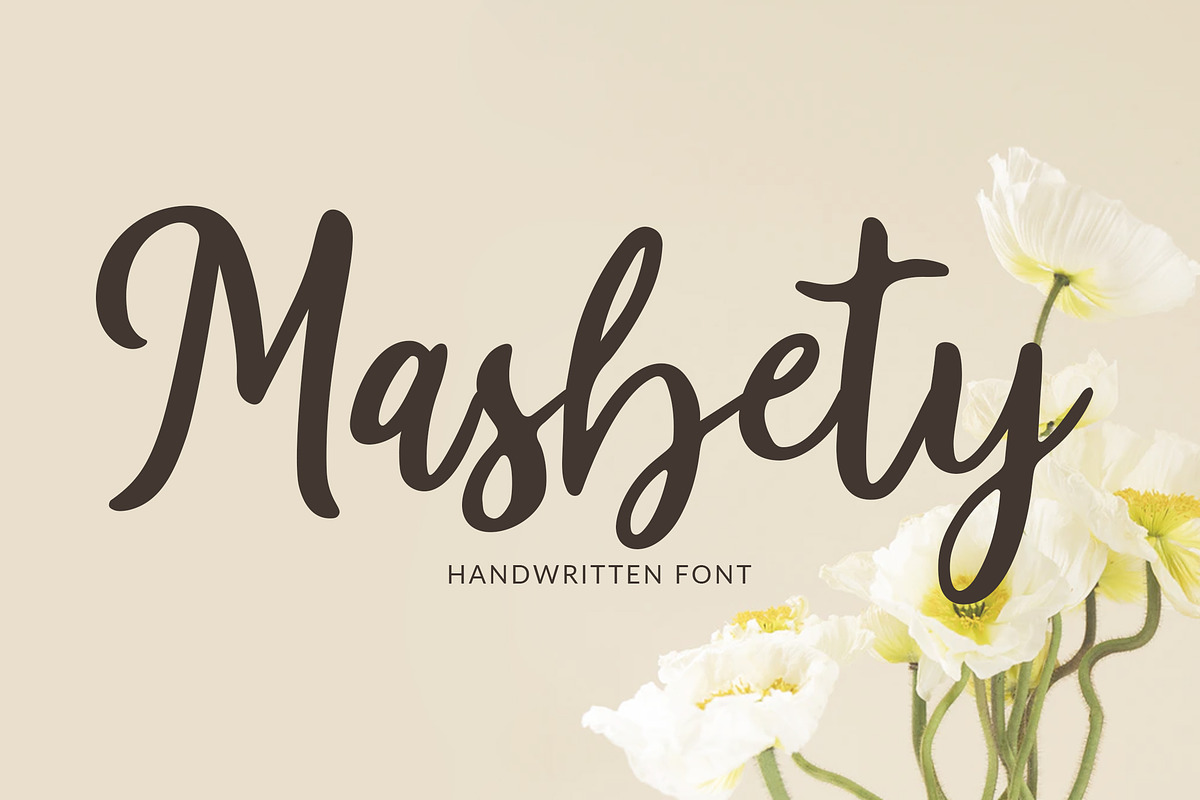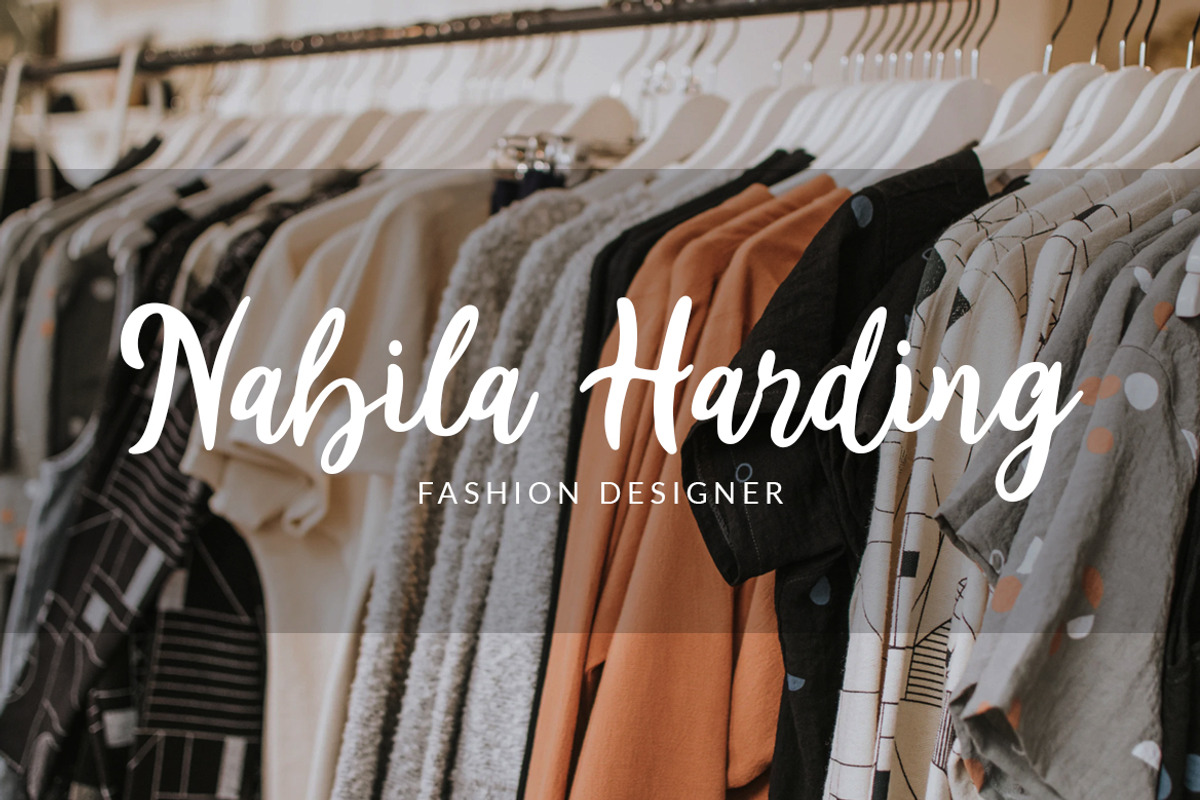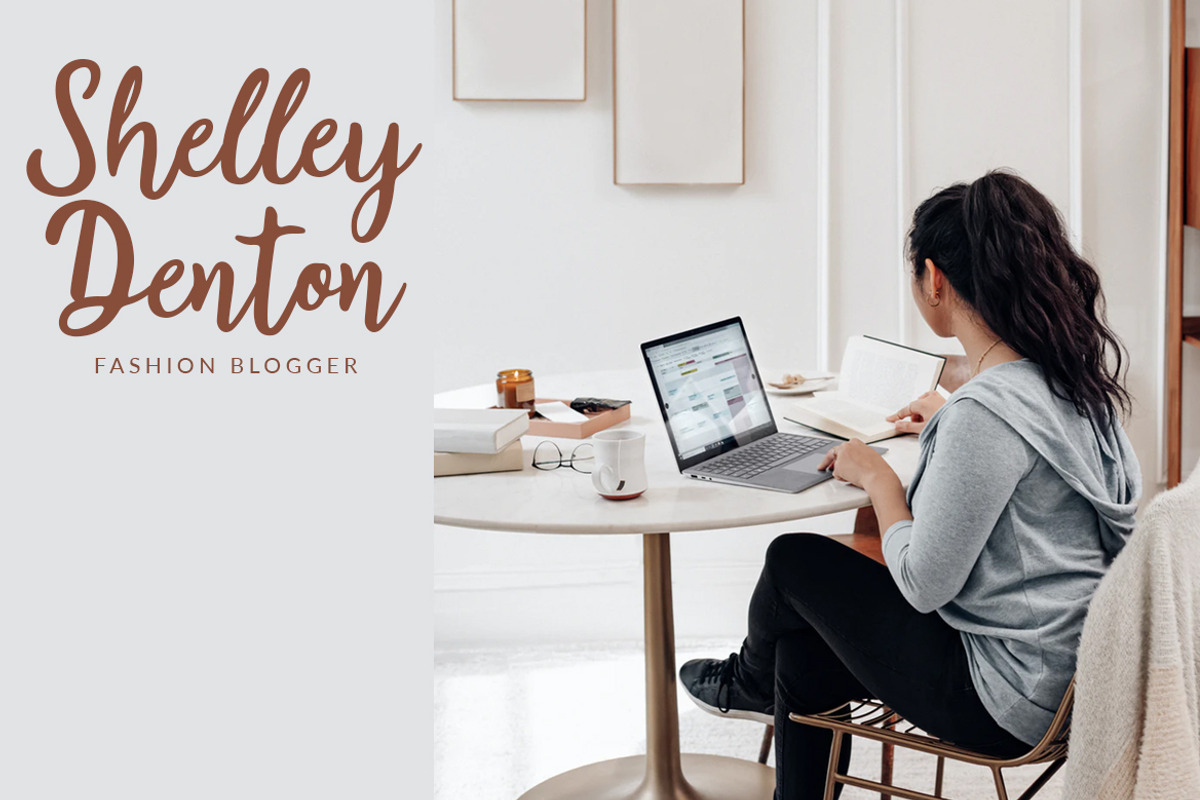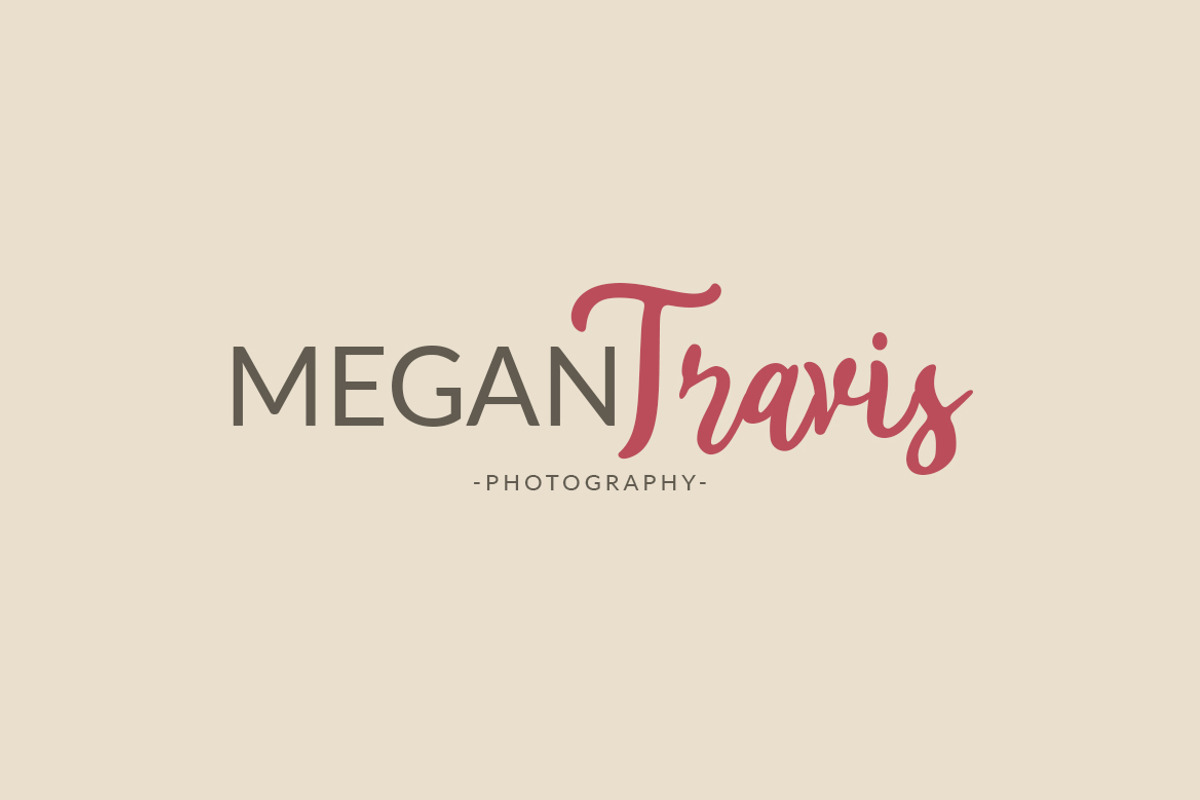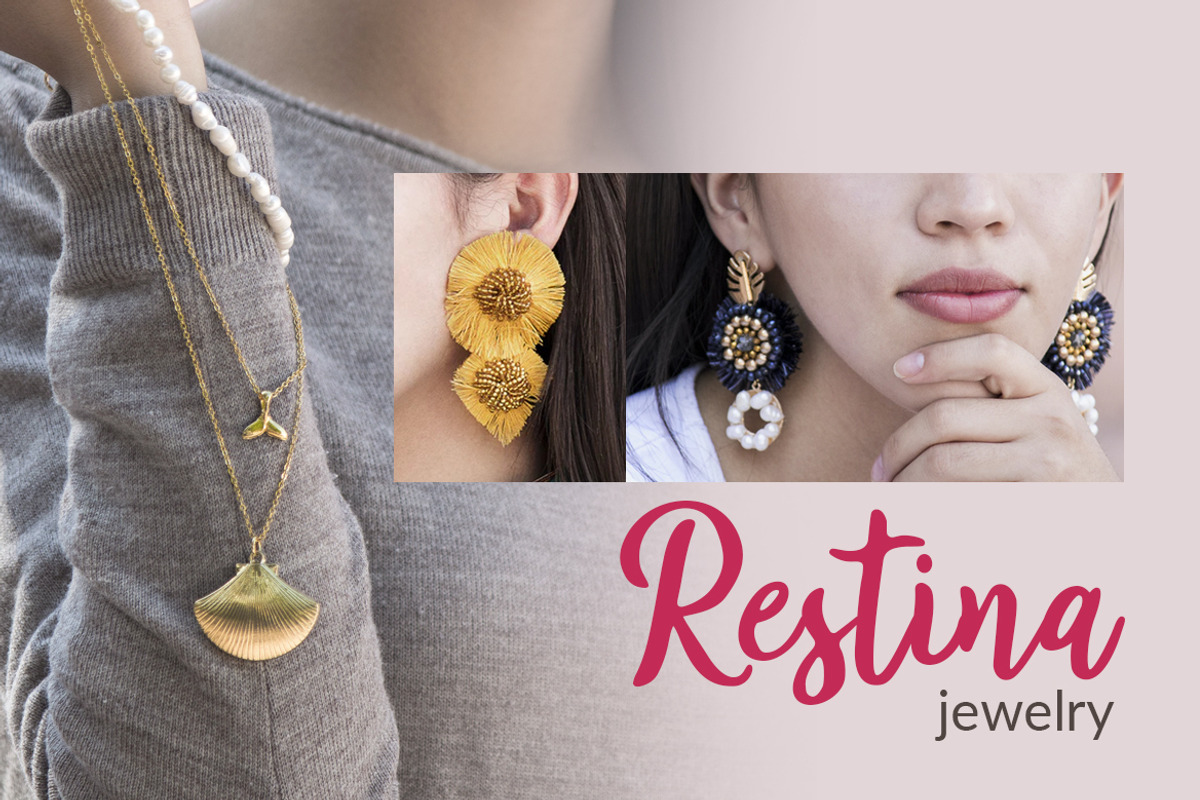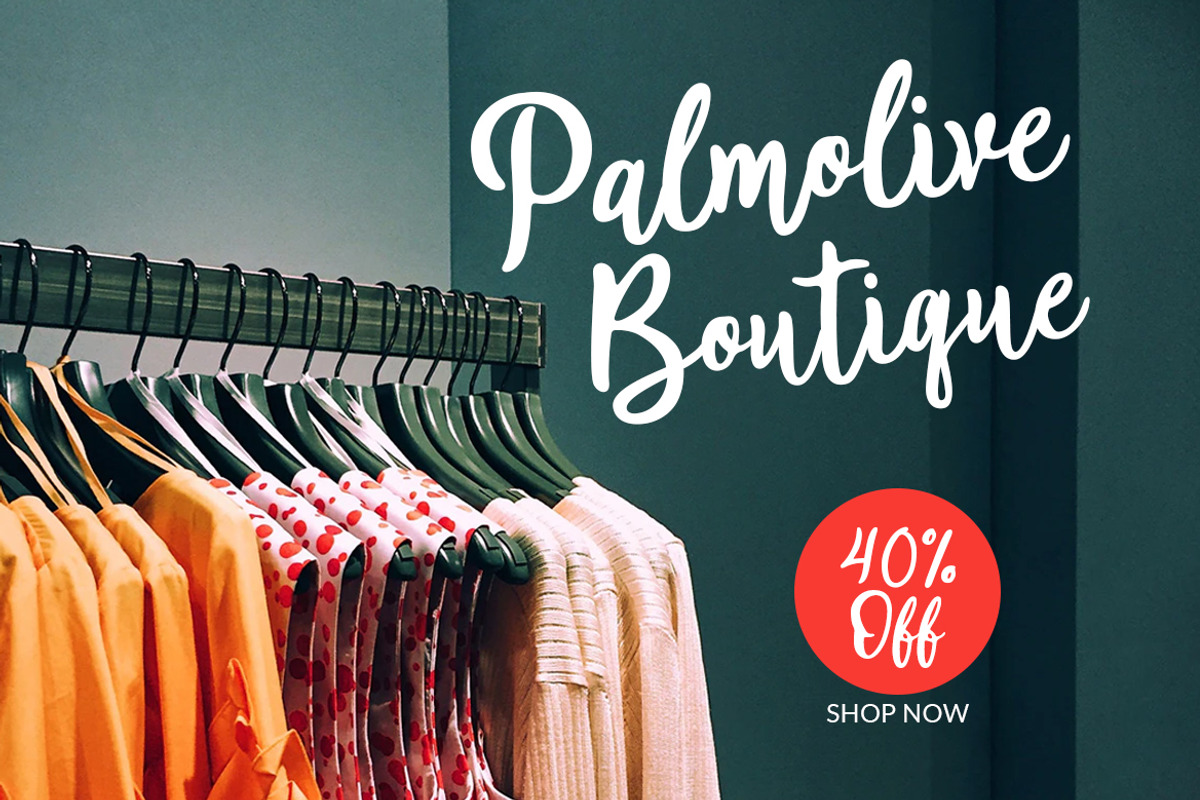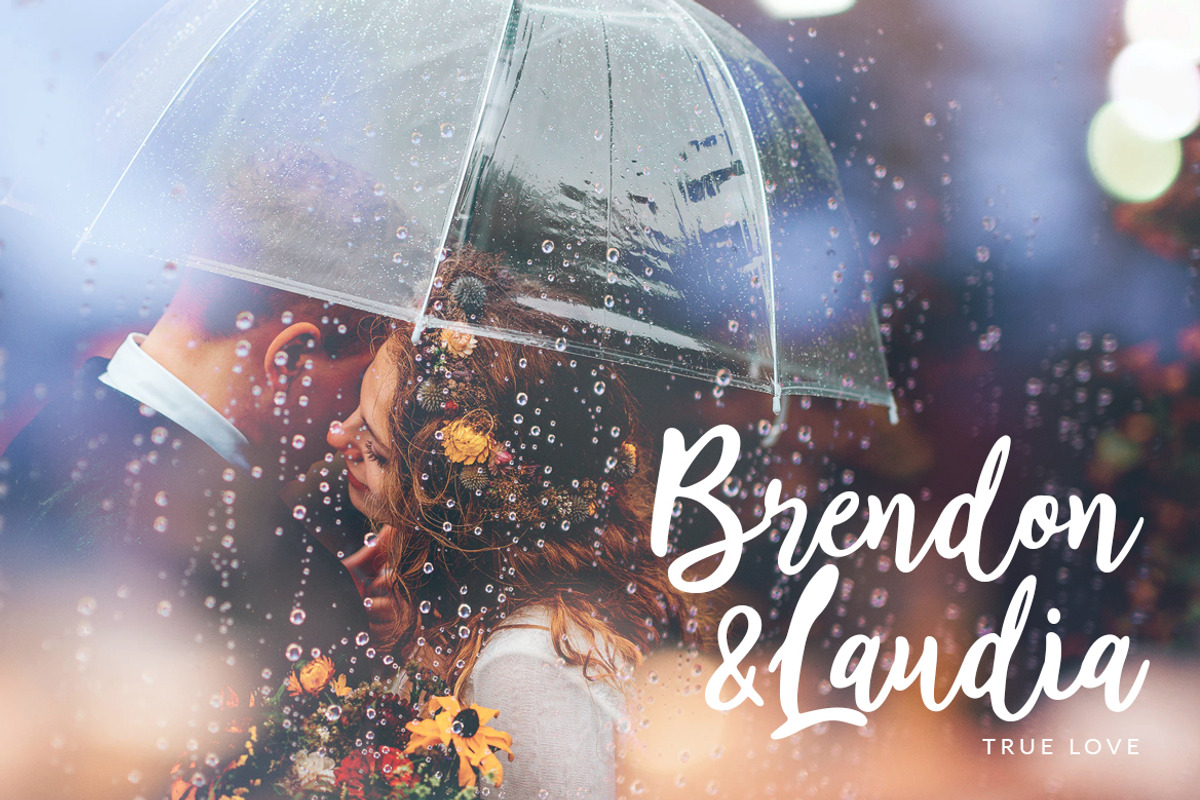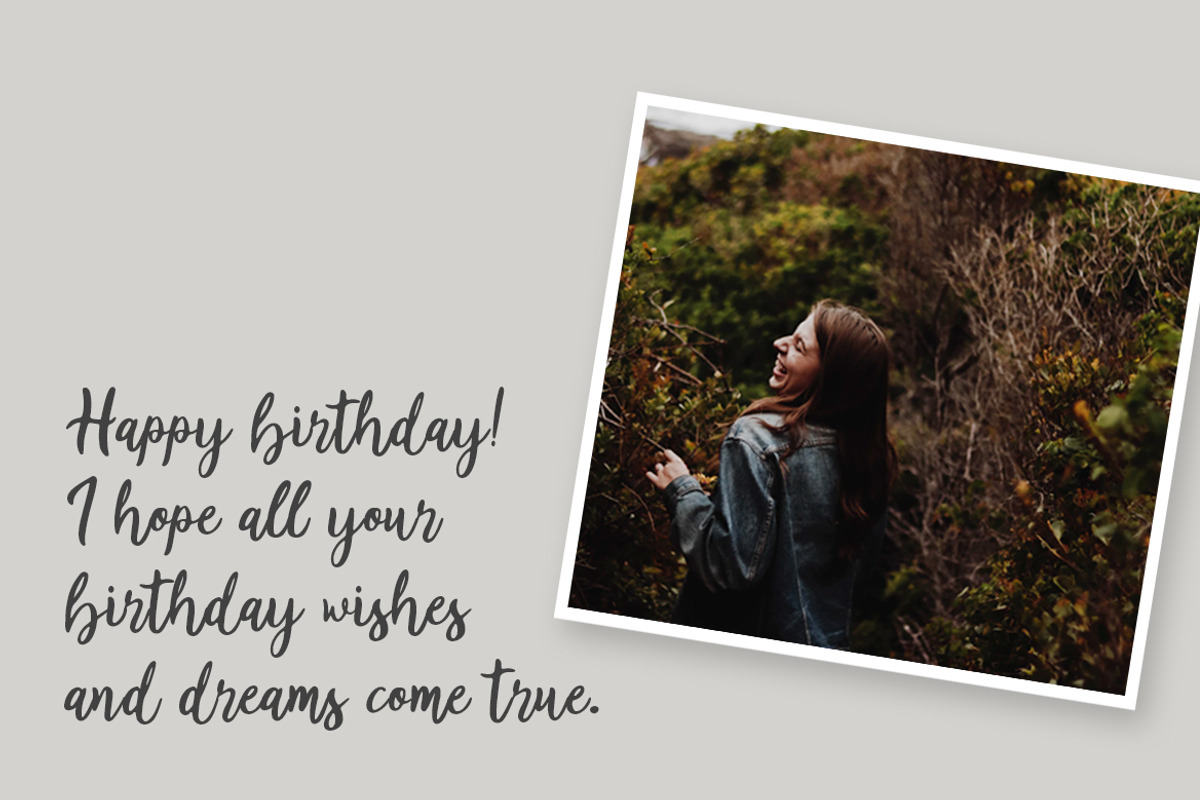
Masbety - Handwritten Font
Introducing the new handwritten script font called Masbety. With unique fast hand sweep style for your daily and project needs ex: logo, fashion, apparel, photography, watermark, quotes, blog header, poster, wedding, invitation, stationery, branding, letter, etc.
- And Masbety comes with uppercase, lowercase, numerals, punctuations, ligatures, and multilingual support.